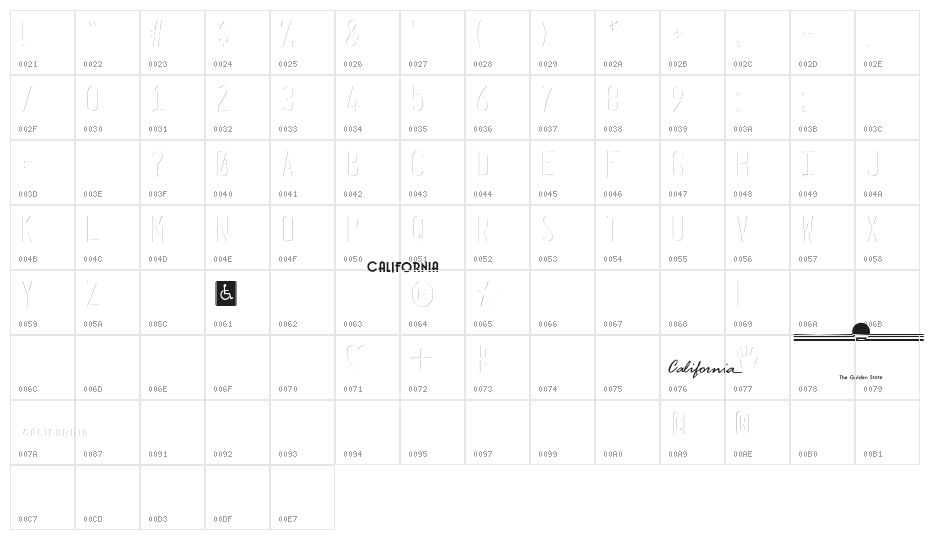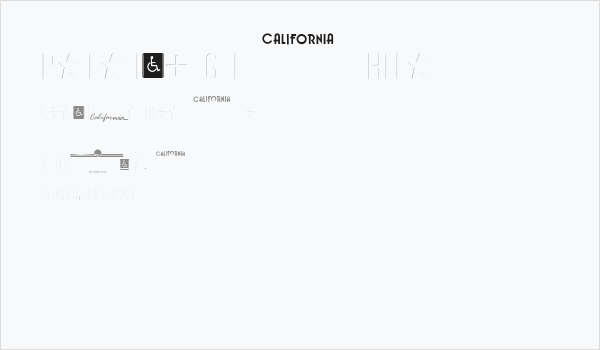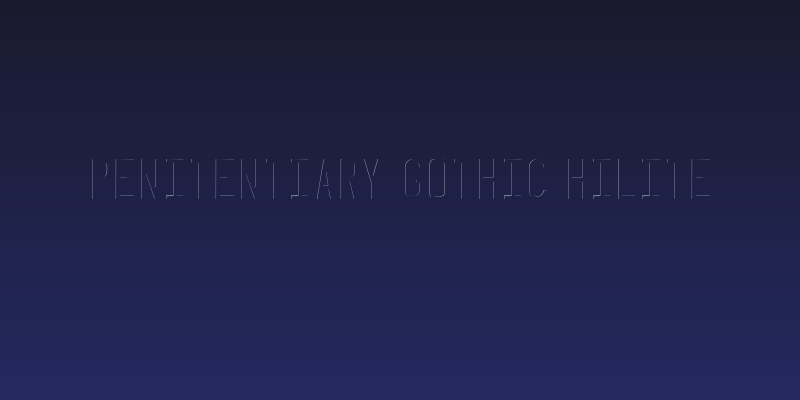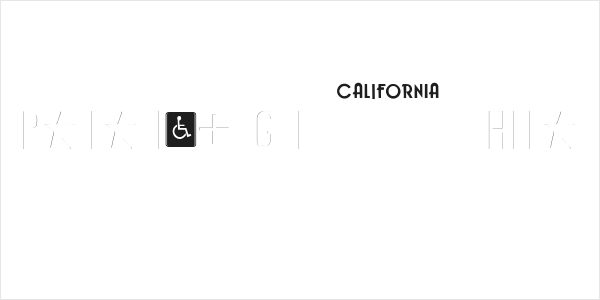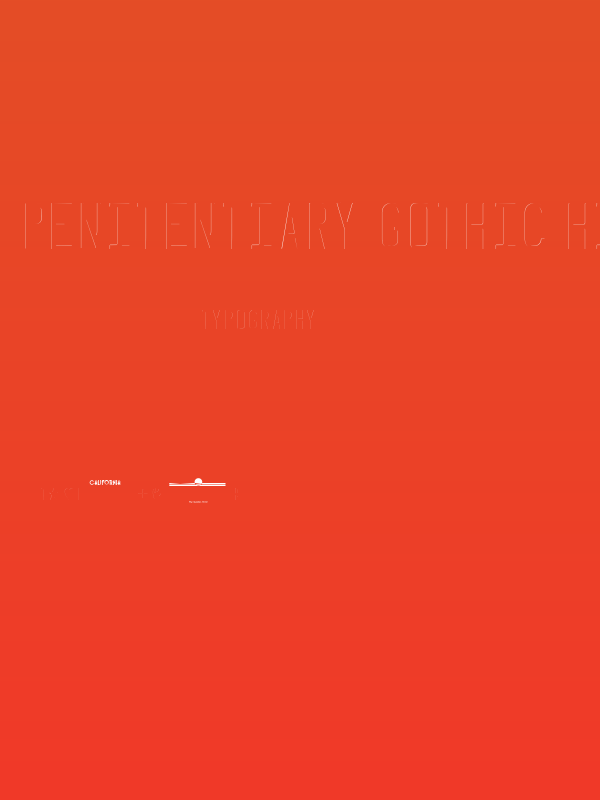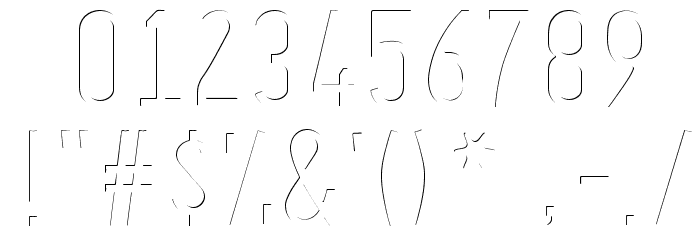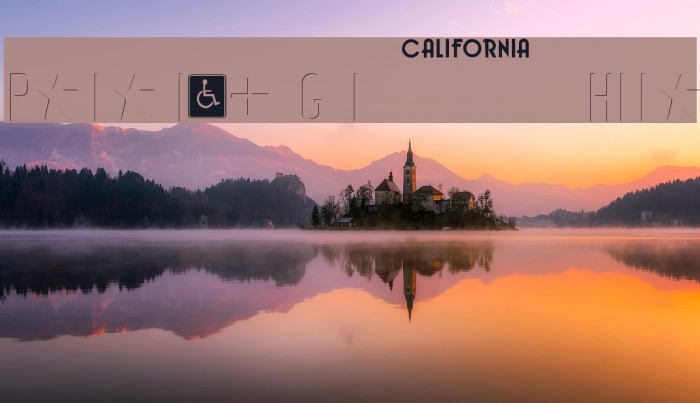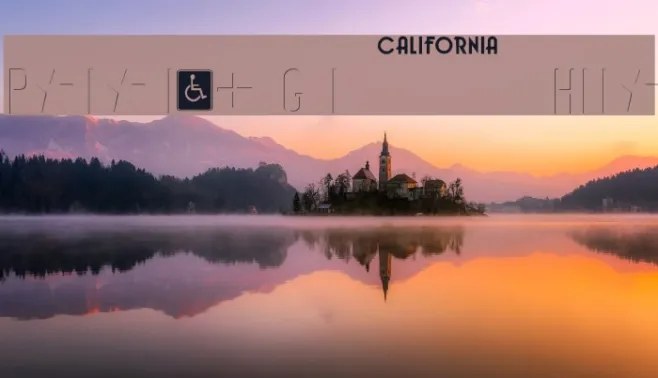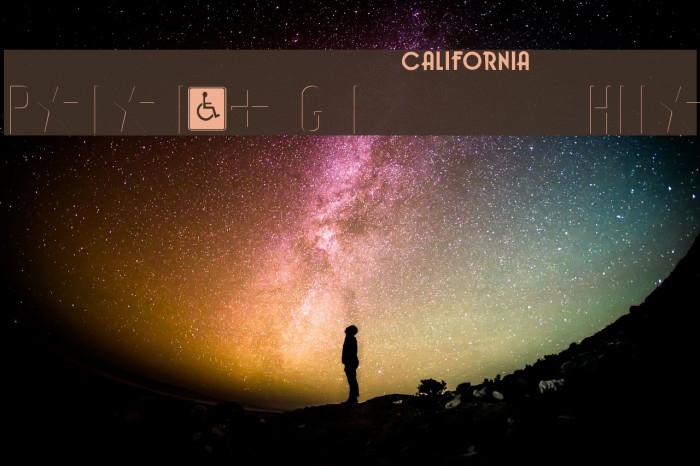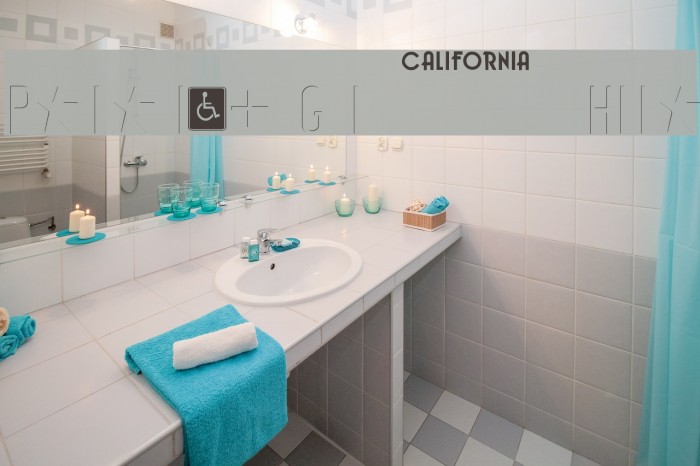
Penitentiary Gothic Hilite Font
Penitentiary Gothic Hilite Description
This font features a unique stencil-like design with a modern twist. The characters are bold and geometric, with distinct cutouts that give it a contemporary and industrial feel. The uppercase letters are particularly striking, with sharp angles and clean lines that create a sense of precision and order. The numerals and special characters maintain this aesthetic, ensuring consistency across all glyphs. This font's style is both functional and decorative, making it suitable for a variety of design applications.
| Use Case | Headlines, Logos, Signage |
| Proposed Projects | Ideal for branding, signage, posters, and any project requiring a modern industrial aesthetic. |